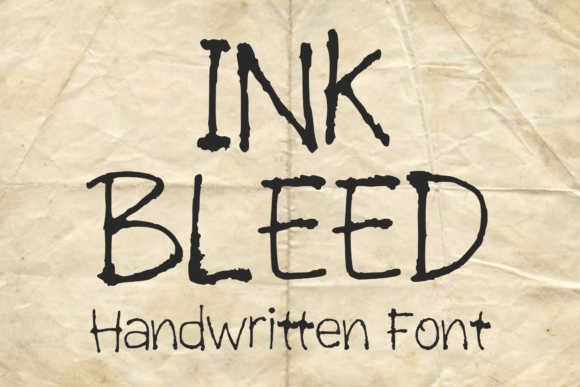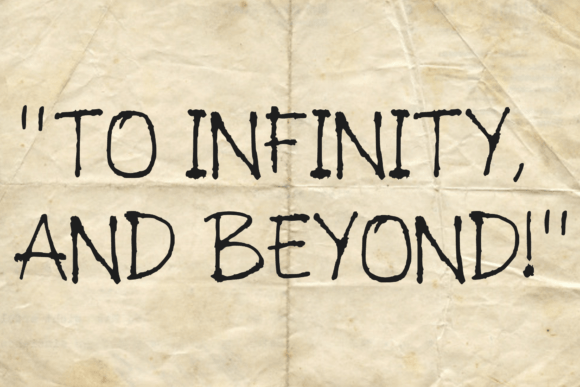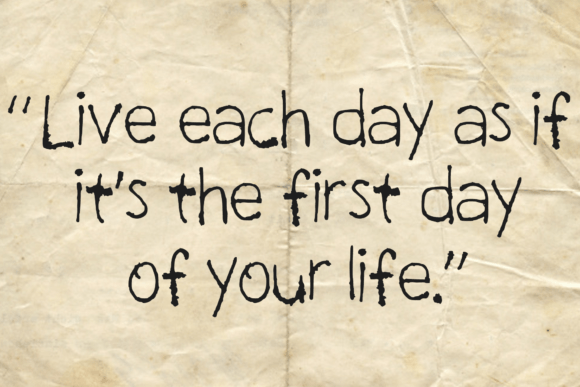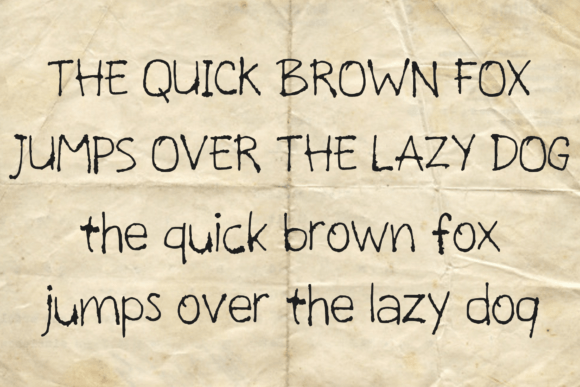
Ink Bleed Font: A Mystery Handwritten Font for Halloween & Crafts
About the Ink Bleed Font
Add a touch of class to your work with the Ink Bleed Font, a truly exceptional typeface. Ink Bleed is a cool ink-made handwritten font! You can use it for anything ranging from t-shirts, for your detective play or mystery theme needs, Halloween party needs, greeting cards, stickers, posters, kid’s book design or anything that needs a casual touch. Try it to create fabulous designs and feel the good vibes with it!
Ink Bleed excels in display applications such as headlines, posters, and short-form text on packaging or merchandise. Its casual, hand-drawn feel works well for branding projects targeting younger demographics or those with a playful, slightly rebellious aesthetic. Avoid using it for body copy or UI elements; the inconsistent stroke weights would hinder readability in extended text.
For optimal visual harmony, pair Ink Bleed with a clean sans-serif like Montserrat for a modern contrast, or a classic serif like Garamond for a more vintage feel. A simple geometric sans-serif could also provide a nice counterpoint to its organic nature.
Ink Bleed’s personality is best described as bold, friendly, and slightly quirky. It’s ideal for projects needing a touch of handmade charm without sacrificing impact.
Ink Bleed Font Usage Examples
Ink Bleed Font Example